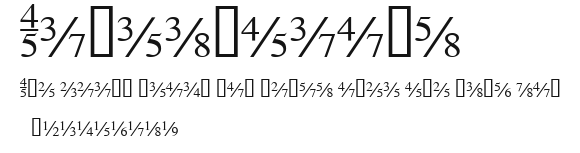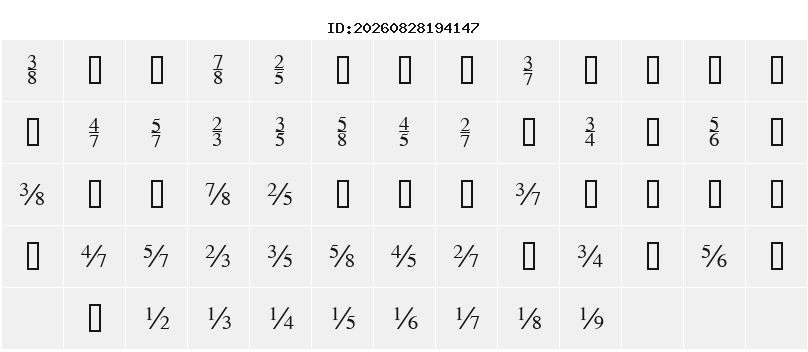
TiFractions Preview
• Font Name: TiFractions
• Font ID: Altsys Fontographer 4.0.3 TiFractions
• Full Font Name: TiFractions
• Version: Altsys Fontographer 4.0.3 03.06.1994
• PostScript Name: TiFractions
• Character Count: 94
About TiFractions.ttf
TiFractions.ttf is a modern, elegant sans-serif font designed for ultimate readability and visual harmony. Perfect for branding, headlines, web design, and print materials.